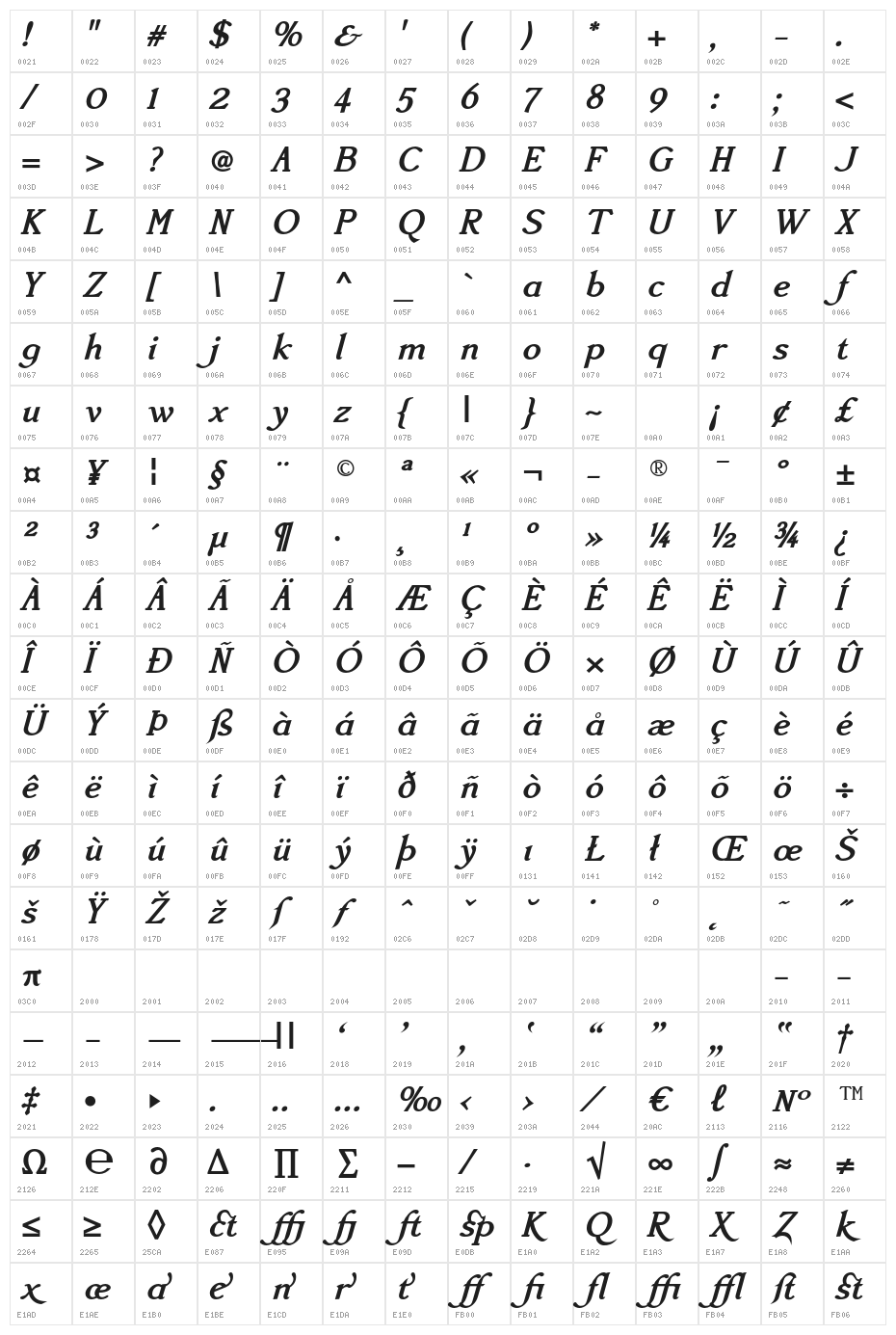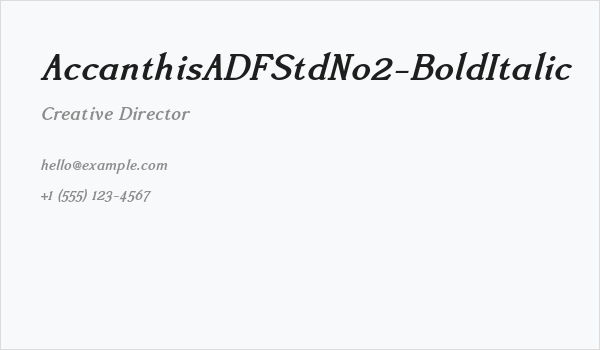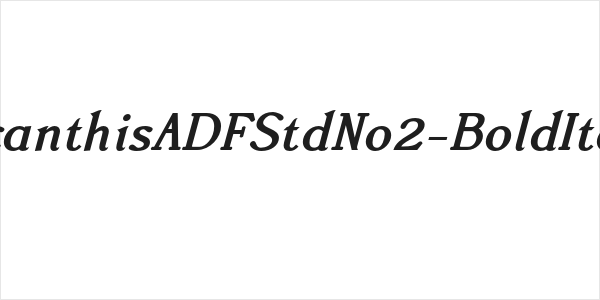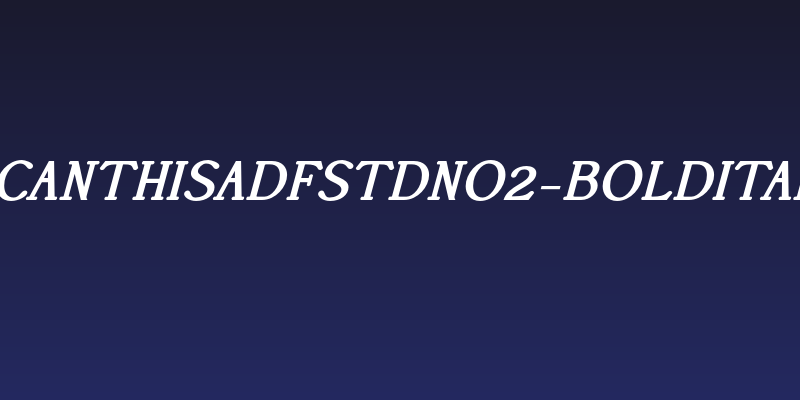
AccanthisADFStdNo2-BoldItalic Font
AccanthisADFStdNo2-BoldItalic Description
This font features a classic serif style with elegant, flowing lines and a sophisticated italic slant. The characters are well-defined with moderate contrast between thick and thin strokes, giving it a refined and traditional appearance. The uppercase letters are bold and commanding, while the lowercase letters maintain a graceful and fluid form. The numerals are consistent with the overall style, providing a cohesive look across all characters. Special characters are included, enhancing its versatility for various design needs.
| Proposed Projects | Ideal for formal invitations, editorial design, book covers, and branding projects that require a touch of elegance and tradition. |